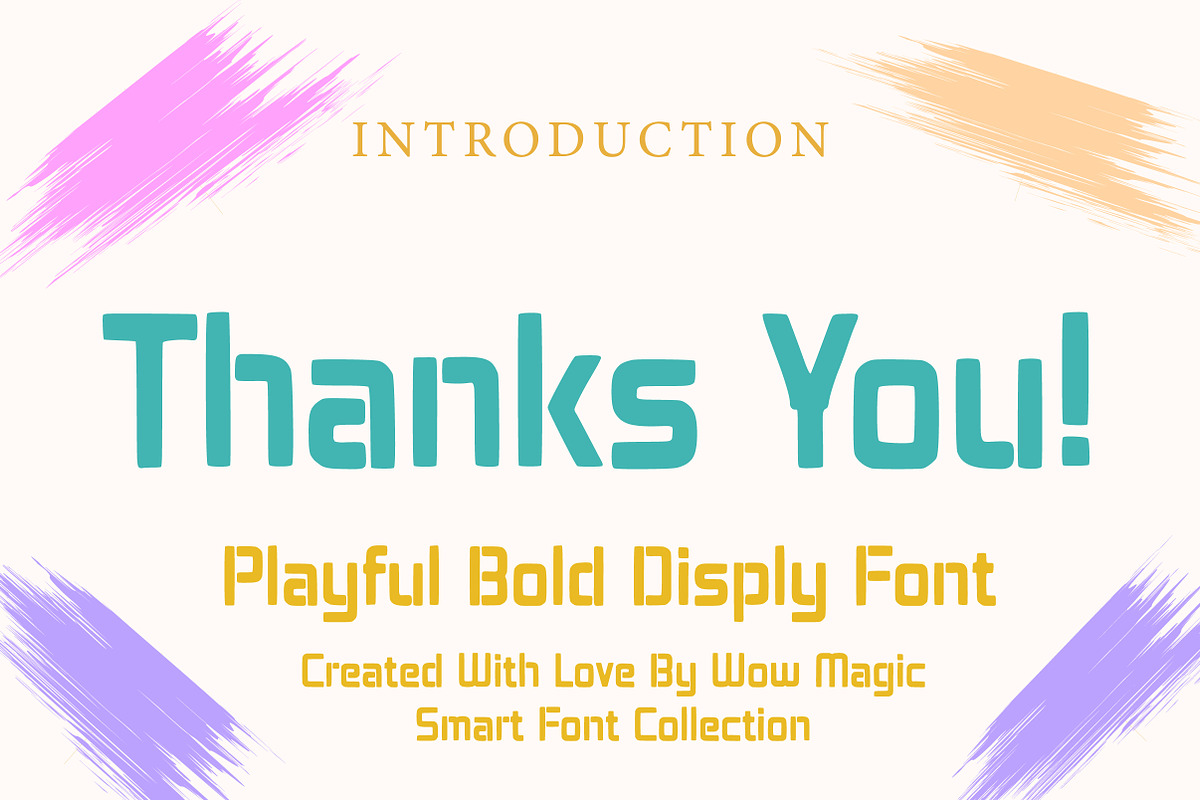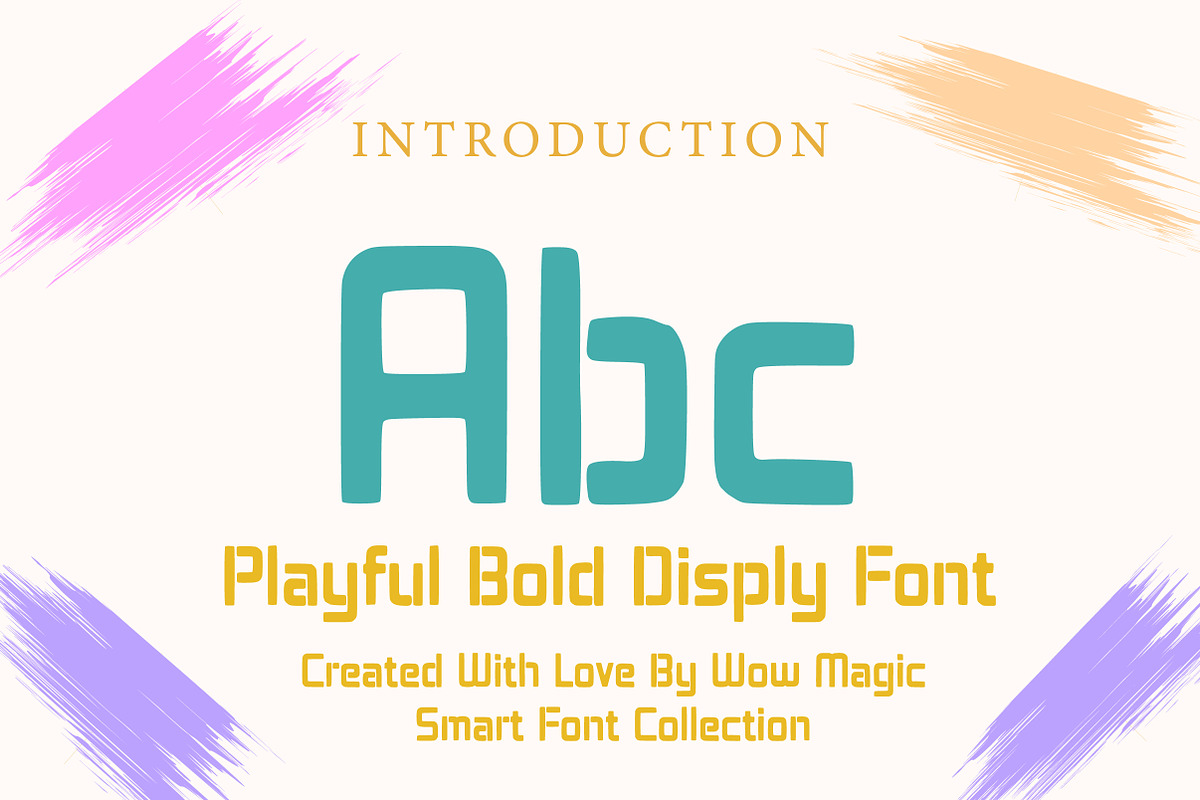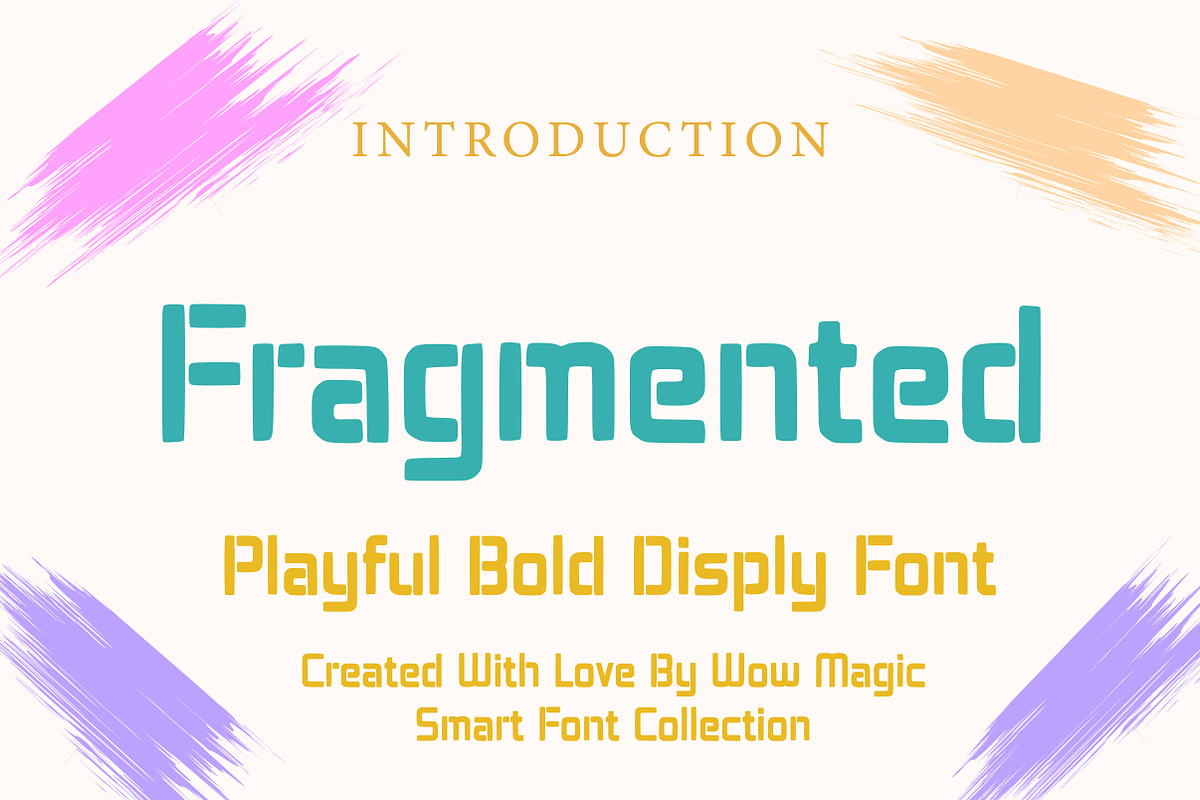
Fragmented
Fragmented is a bold geometric display font inspired by digital distortion, broken structures, and modular typography. With its sharp edges, sliced letterforms, and segmented construction, this typeface delivers a strong futuristic and tech-driven aesthetic.
Each character is built with structured gaps and fragmented cuts, creating a powerful visual rhythm that feels modern, edgy, and experimental. The balanced weight and solid presence make it perfect for eye-catching headlines and statement designs.
Fragmented works exceptionally well for gaming titles, esports branding, tech logos, posters, sci-fi visuals, album covers, and digital artwork. If you're looking for a font that feels bold, disruptive, and innovative — Fragmented brings a sharp, high-impact identity to your project.